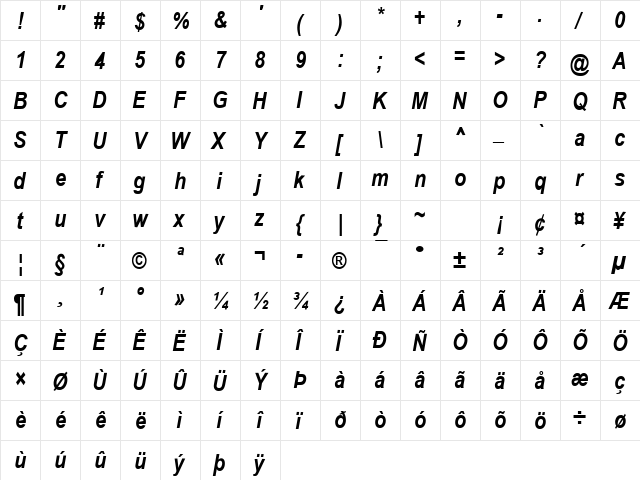
Communication35 Regular
Design Context for Communication35 Typeface
Communication35 takes a measured approach to typography — its balanced proportions and neutral character make it a reliable workhorse for both digital and print work.
Pro Tip: Use Communication35 in both headline and body roles to test its range before committing to a single application.